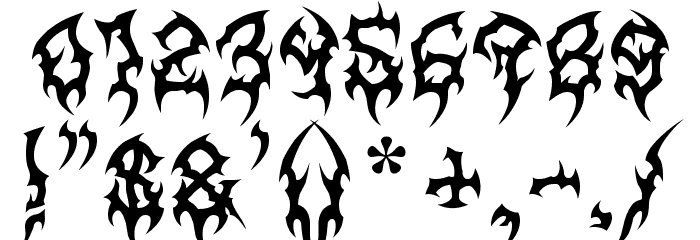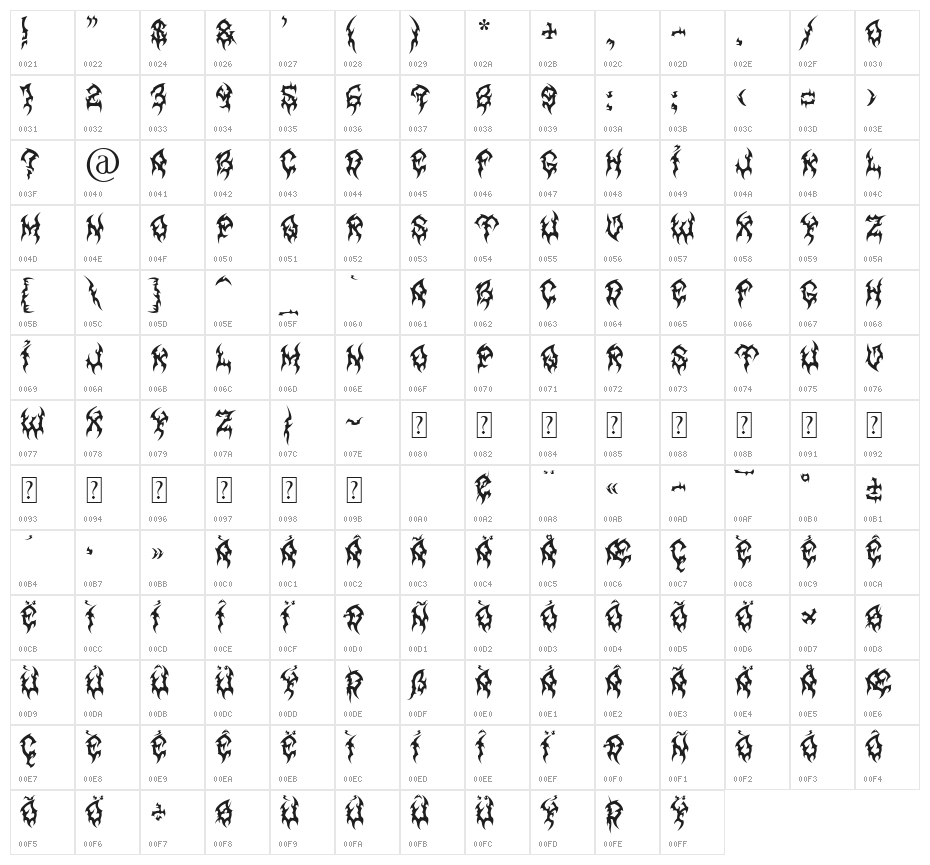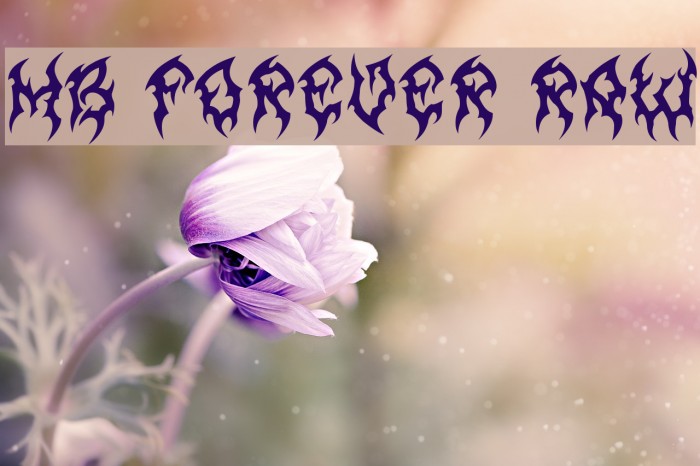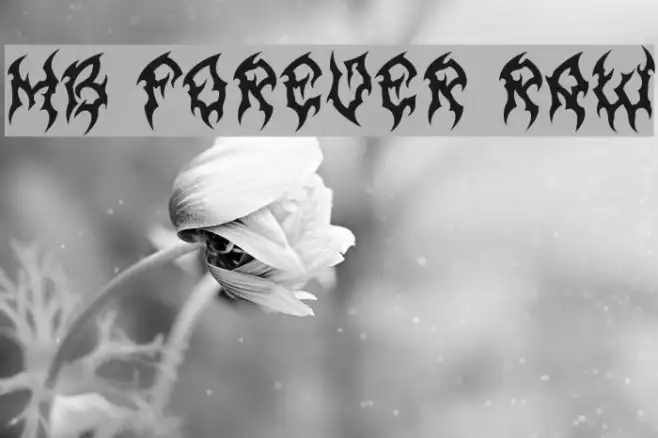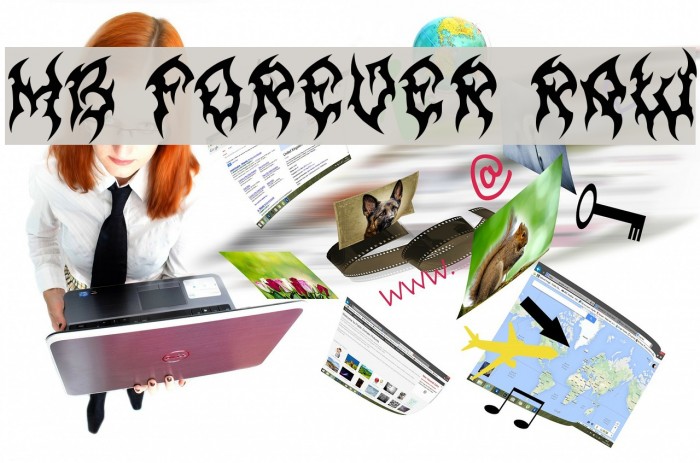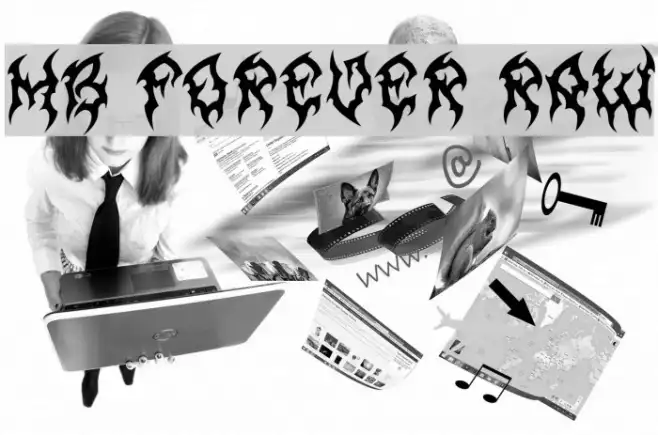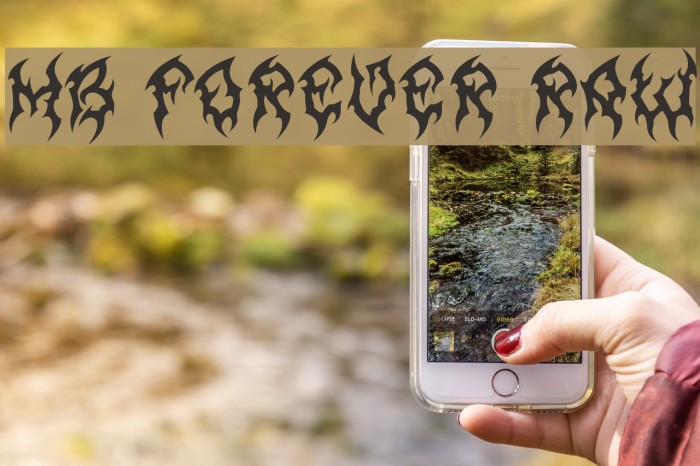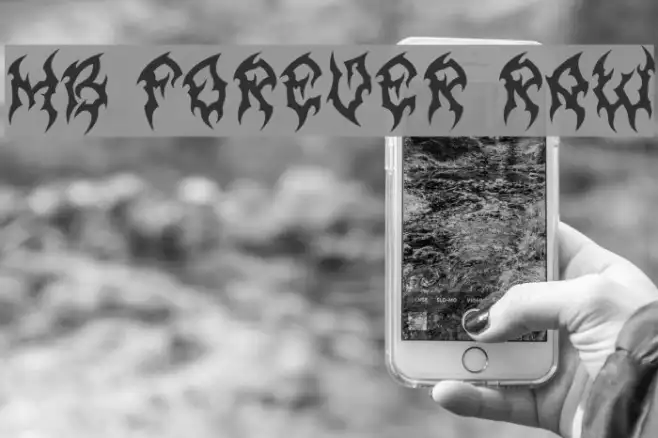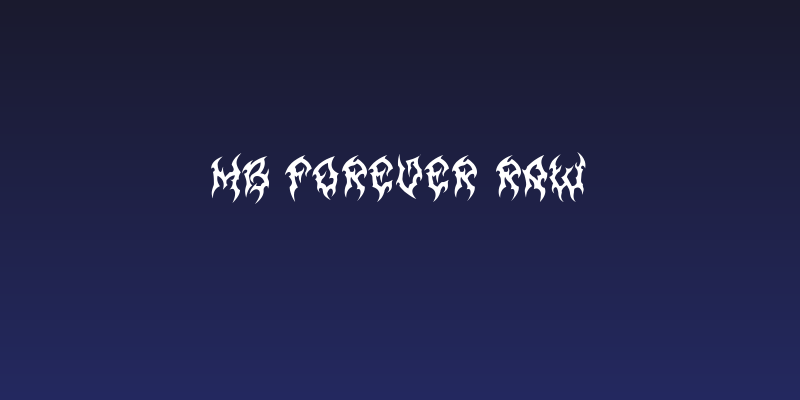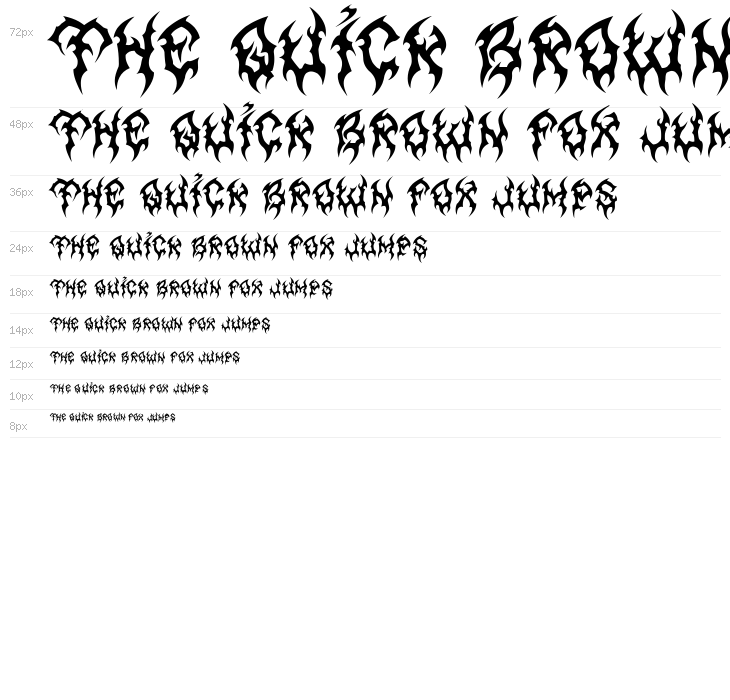
MB Forever Raw Font
MB Forever Raw Description
This font features a bold and aggressive design with sharp, jagged edges that give it a fierce and dynamic appearance. The characters are heavily stylized, resembling flames or tribal patterns, which create a sense of movement and intensity. The uppercase and lowercase letters maintain a consistent style, with intricate detailing that adds depth and complexity. The numbers and special characters follow the same aesthetic, ensuring a cohesive look across all elements. This font is ideal for projects that require a strong, impactful visual presence.
| Proposed Projects | Perfect for band logos, extreme sports branding, video game titles, and edgy poster designs. |